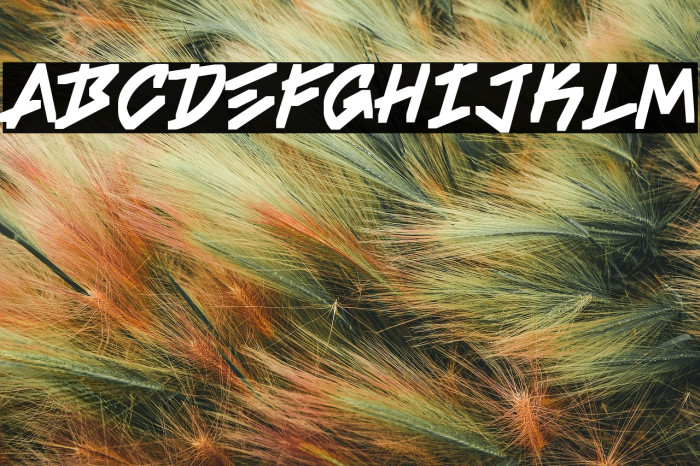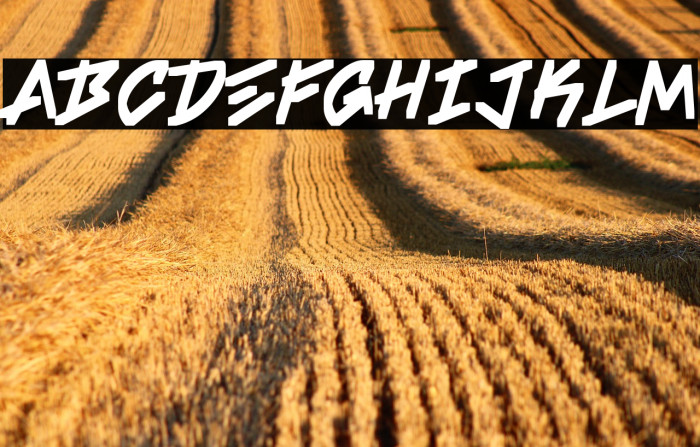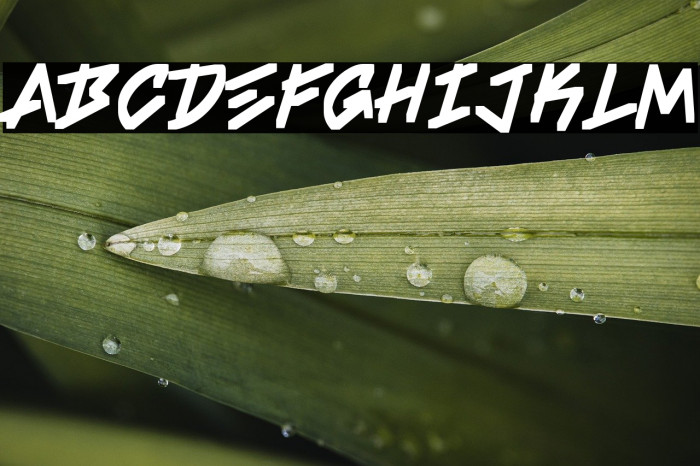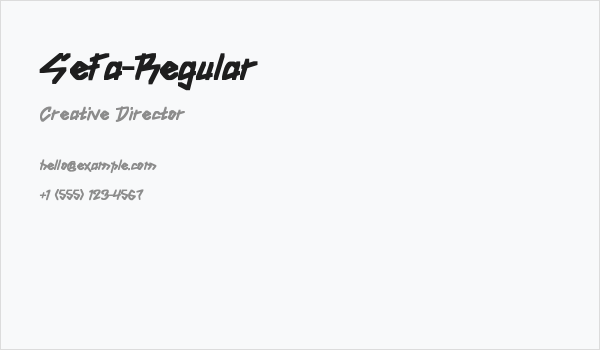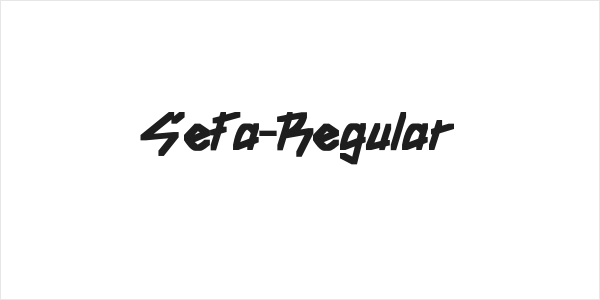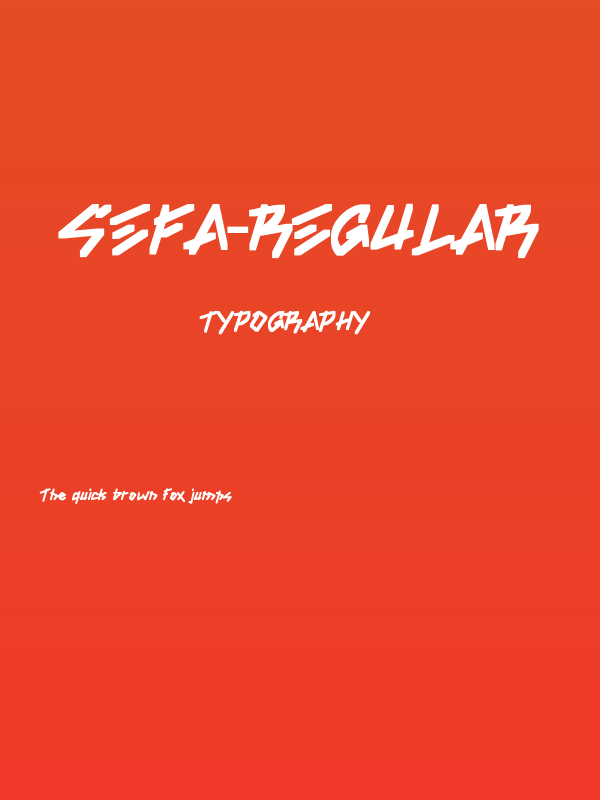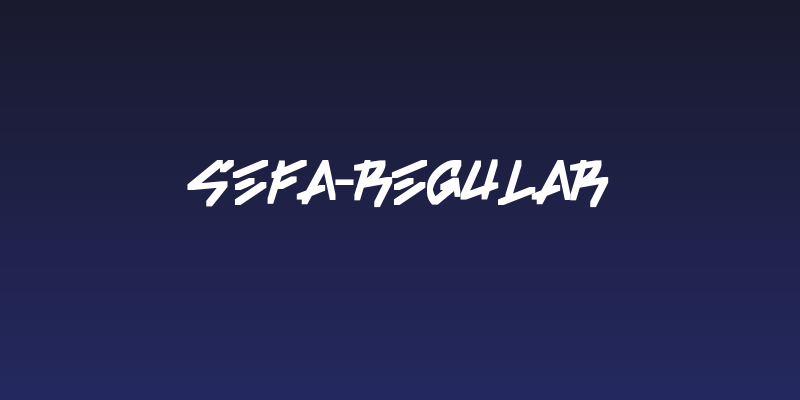
Sefa-Regular Font
A bold, angular font with a dynamic and energetic style, featuring sharp edges and a slightly slanted orientation.
| Overall Style | Modern, Decorative |
| Proposed Projects | Posters, headlines, logos, and branding materials. |